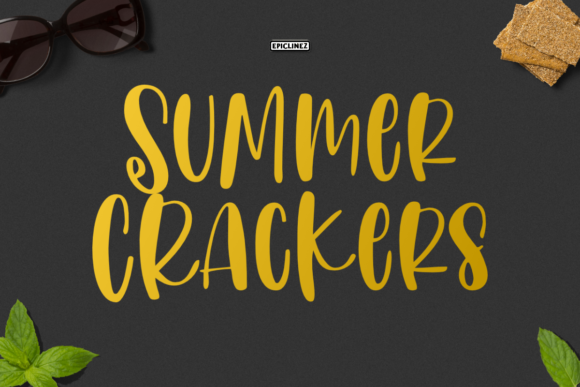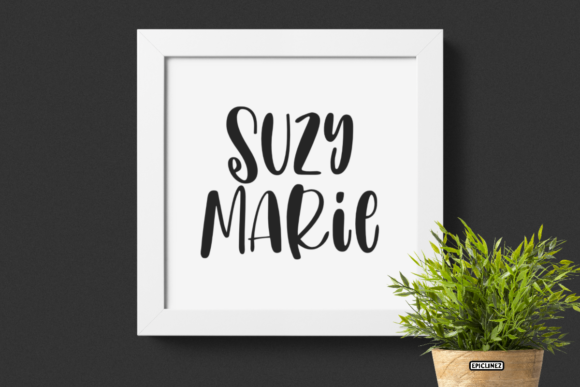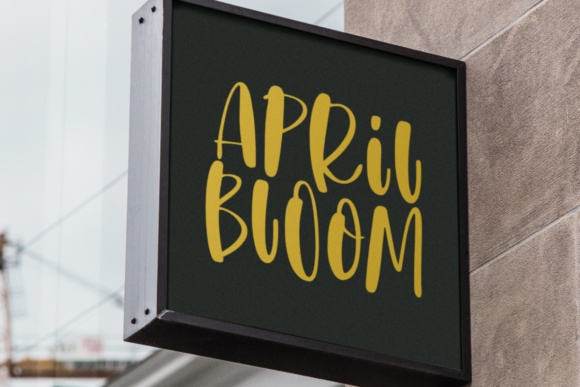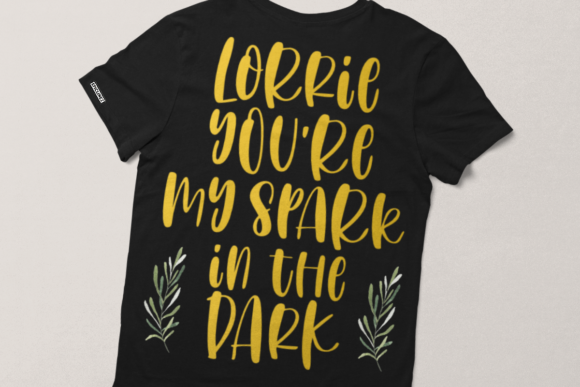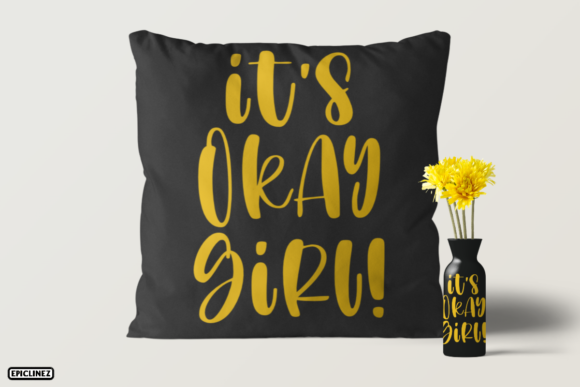
Summer Crackers Font
About Summer Crackers Font
Summer Crackers is a playful and lively handwritten font that adds a touch of fun and whimsy to any design project. With its unique and slightly quirky style, this font brings a sense of personality and character to your designs.
The versatility of Summer Crackers allows it to shine in a wide range of contexts. Whether you’re creating party invitations, greeting cards, posters, social media graphics, or even branding materials, this font can adapt and enhance your designs with its cheerful and energetic vibe.
The charming imperfections and handcrafted look of Summer Crackers give it a distinct and lively appeal. It’s like the font is dancing on the page, adding a sense of movement and excitement to your text. The playful nature of the font allows you to experiment with different letter combinations, making each word a delightful surprise.
Whether you’re designing for a children’s event, a summer-themed project, or simply want to inject some fun into your designs, Summer Crackers is the perfect choice. Its versatility and adaptability make it incredibly adept at capturing attention and adding a touch of whimsy to your creations.
So, let your creativity run wild with Summer Crackers and explore the endless possibilities it offers. Embrace its fun and quirky nature, and watch as it transforms your designs into vibrant and captivating works of art. Get ready to infuse your projects with a sense of joy and playfulness that will leave a lasting impression on your audience.